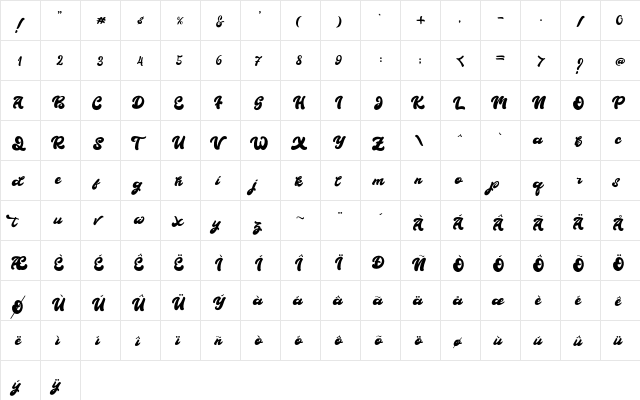
Boldie Script Regular Font Preview
Boldie Script Regular
| Foundry | thirtypath |
| Designer | thirtypath |
Design Context for Boldie Script Typeface
Boldie Script flows with the natural rhythm of handwritten lettering, making it ideal for designs that call for warmth and personal expression. Its bold stroke weight gives it real presence on the page.
Font Pairing: Combine Boldie Script with a simple geometric sans for maximum contrast — the tension between flowing curves and clean structure is a classic typographic pairing.
Pro Tip: Use Boldie Script for short runs of text — names, titles, or taglines. Extended body copy in script faces tires the eye quickly.